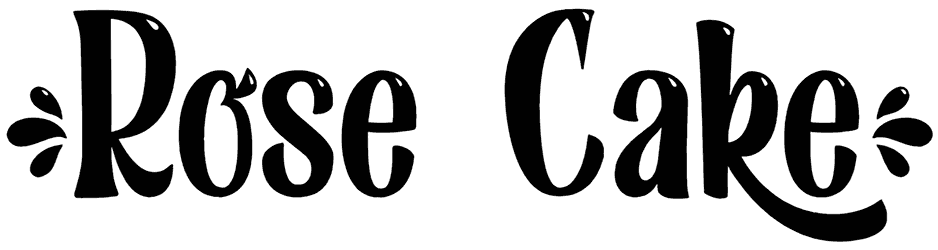
If you find it difficult to create a design for children, Rose Cake can make your job easy. This cartoon font will help you to talk to your young audience in a childish way and see your projects from their point of view.
Despite its childish and simple appearance, this handwritten font can look very professional and shine well in your presentations. It is also recommended to use it for packaging, postcards, and book covers.
Type ( before word to get beginning splash and Type ) after word to get the ending splash.
Example : (Rose Cake)